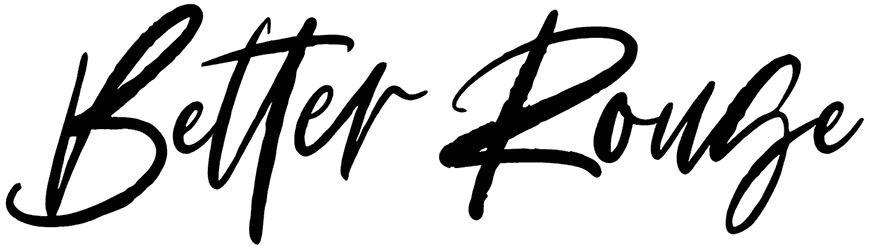
Better Rouge Font
Since choosing the right font can be a step forward, we’re going to introduce you to Better Rouge. The characters of this script font are designed with accurate curves, and its cursive style conveys a sense of innovation, precision, obsession, and professionalism to the audience.
If you intend to design a logo, business card, billboard, book cover, or headline, this handwritten font can be ideal. Keep in mind that because of the unique style, it doesn’t have good readability.